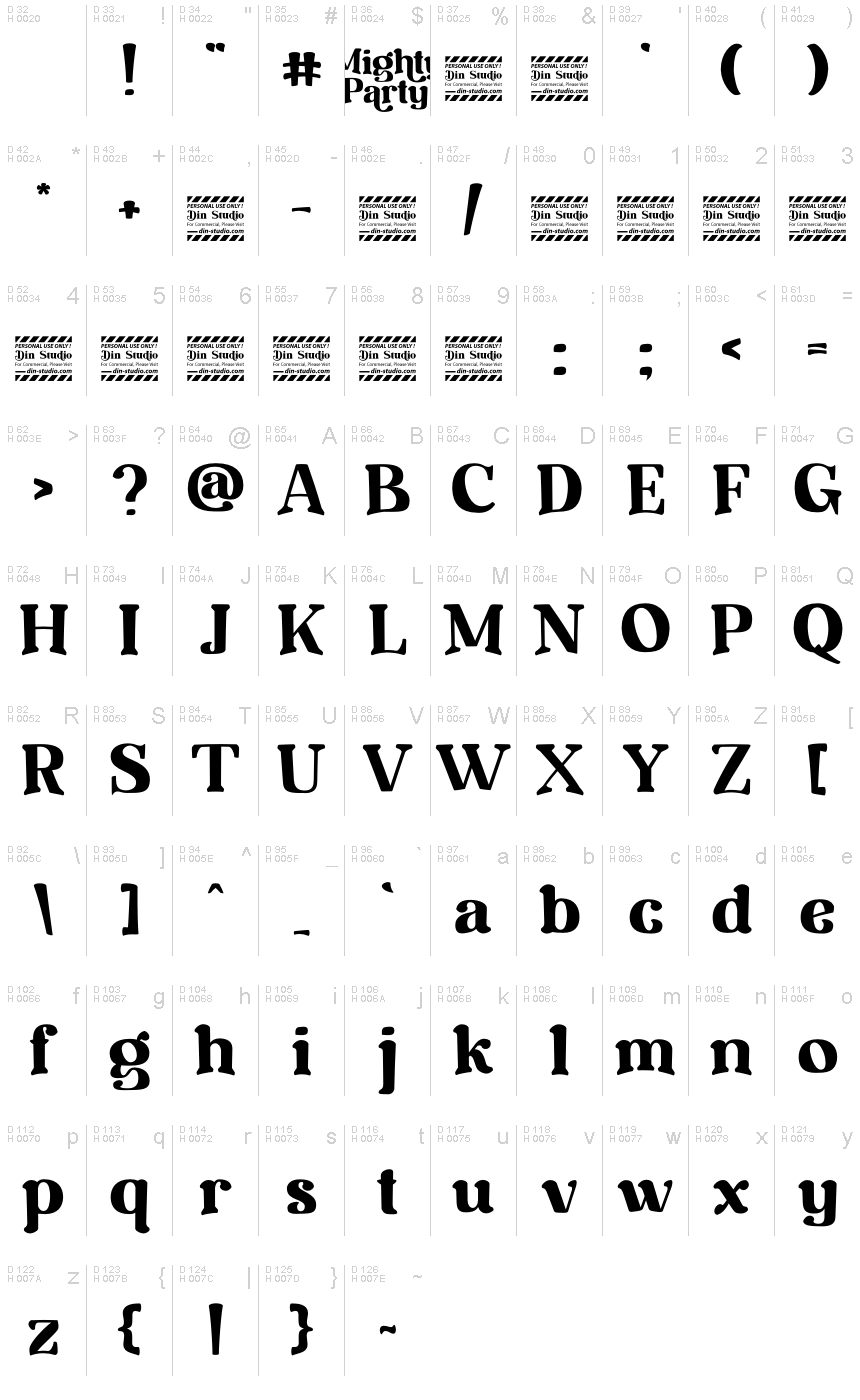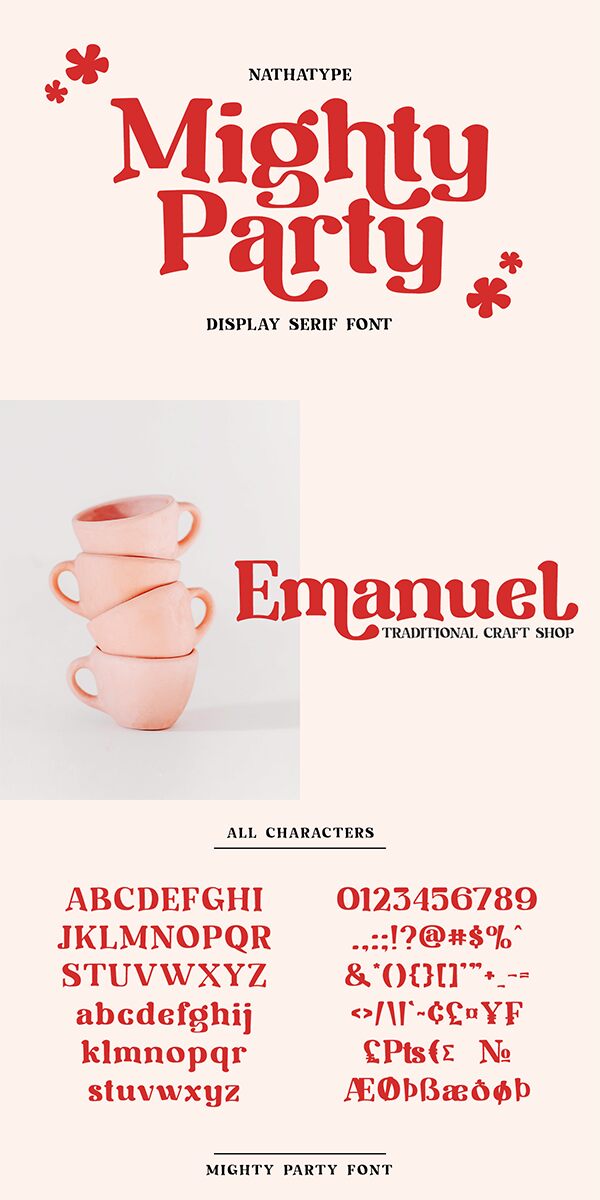
Mighty Party font is designed by Nathatype. It features strong contrast between the strokes, with soft rounded edge terminals giving it a more friendly appearance rather than the regular sharp and stiff shape. Because of this style, this typeface creates a nostalgic, retro feeling and at the same time brings out a friendly modern look without being serious into your eyes.
The all-caps nature makes it ideal for large-size popping-up headlines in magazines layouts, making posters stand-out publications, and even reeling your viewers into animations. Apart from these use cases, you can also easily apply it to creative book covers and interactive web design purposes!